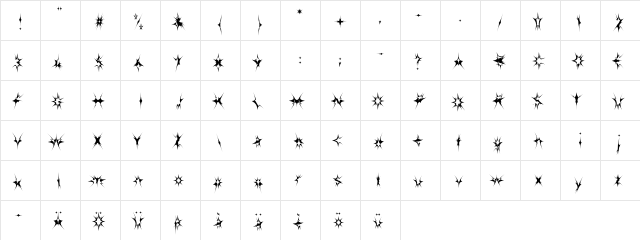
F2FShpeetz LT Std Regular
| Foundry | Linotype GmbH |
| Designer | Thomas Nagel |
Design Context for F2FShpeetz LT Std Typeface
F2FShpeetz LT Std is a composed and adaptable typeface that performs quietly and consistently across a wide range of design contexts. Its slender proportions lend an understated elegance to any composition.